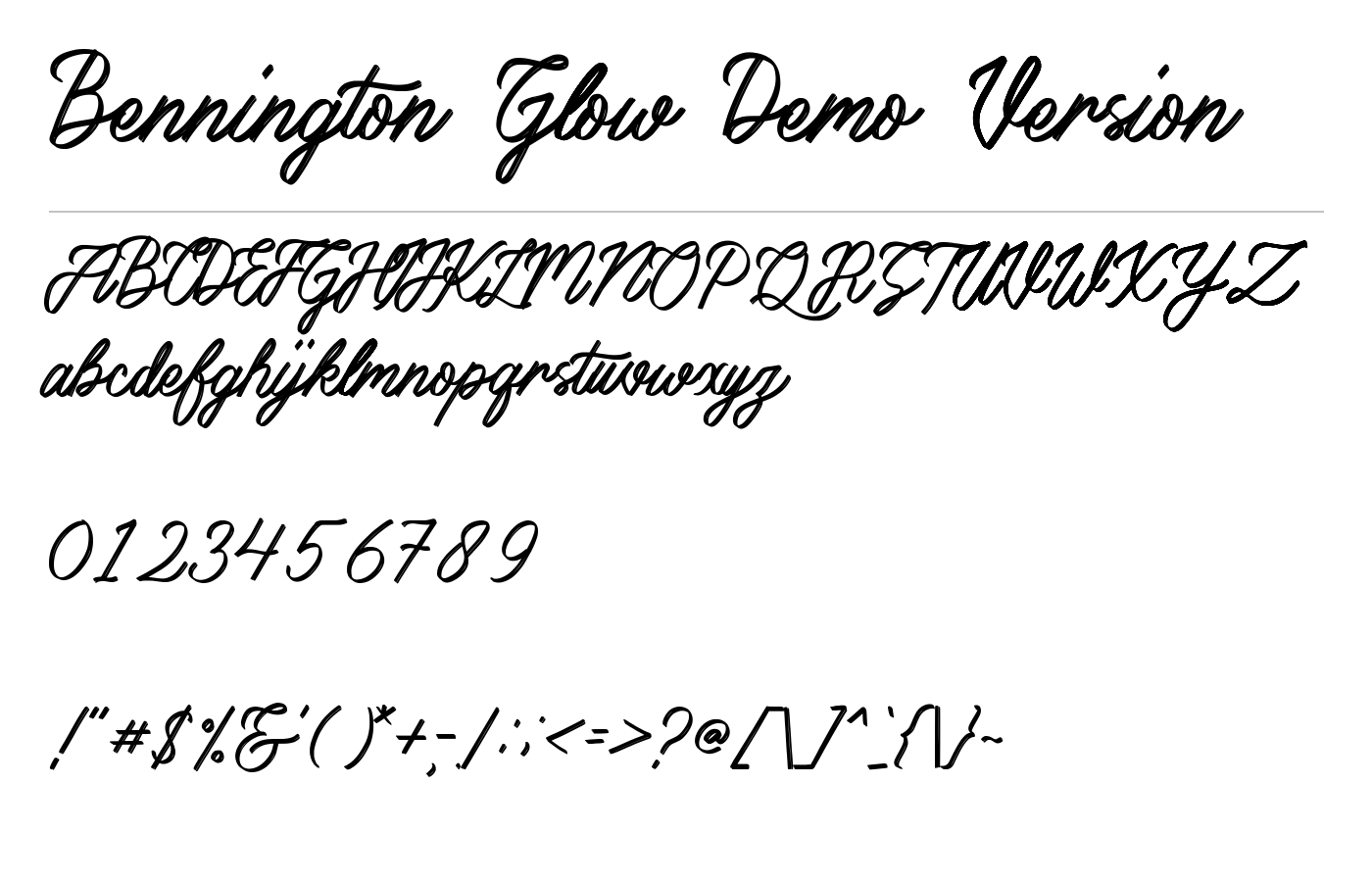
Bennington Glow Demo Version is a fluid and elegant script font that mimics natural handwriting with smooth, connected strokes and a moderate contrast between thick and thin lines. Its refined, cursive style gives off a warm and personal feel, making it perfect for invitations, greeting cards, branding, and any design that seeks a touch of sophistication and approachability. This font works well in headlines and logos where a stylish, yet readable handwritten look is desired.
Bennington Glow Demo Version Font
About Bennington Glow Demo Version Font